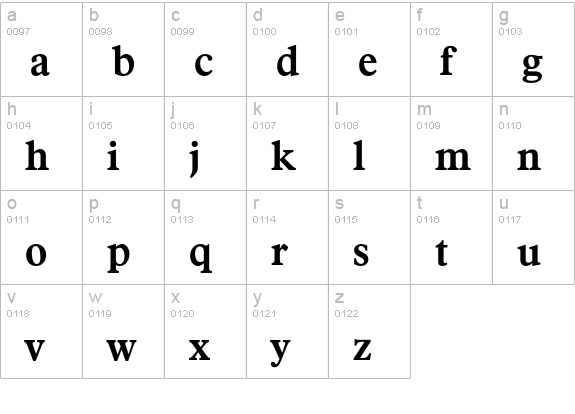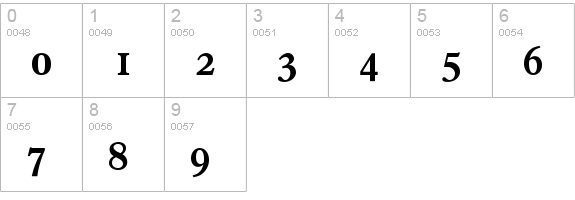
Francisco-DemiBold is a sub-bold, structured variant in the Francisco typeface family \xE2\x80\x94 well suited to sub-headlines and emphasised passages.
Francisco-DemiBold is a versatile and modern font that strikes the perfect balance between boldness and sophistication. With its clean lines and strong presence, this font exudes confidence and professionalism. The sleek design of Francisco-DemiBold makes it ideal for a wide range of projects, from branding and logos to headlines and marketing materials. What sets Francisco-DemiBold apart is not only its striking appearance but also its accessibility. This premium font is available for free download at FontsMarket.com, making it a valuable addition to any designer's toolkit. Whether you're working on a sleek corporate identity or a bold advertising campaign, Francisco-DemiBold is sure to make a lasting impression. Download it today and elevate your designs with this stylish and impactful font.